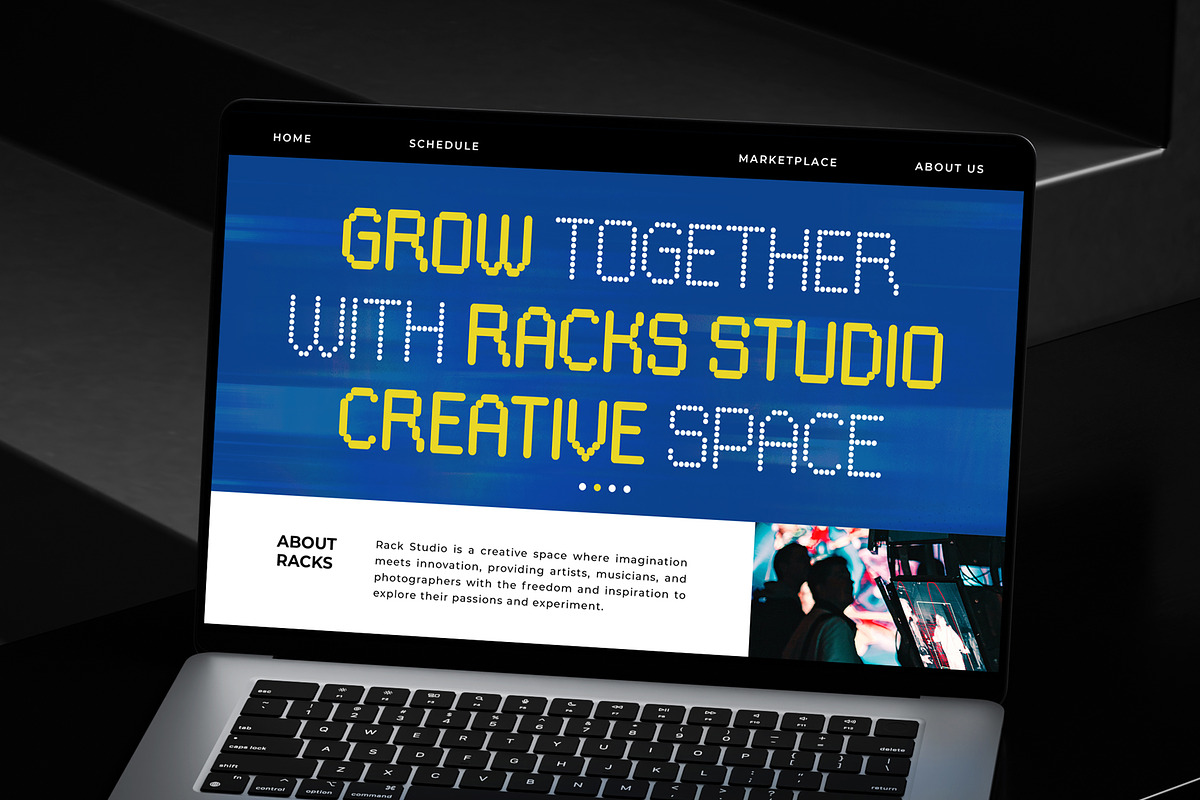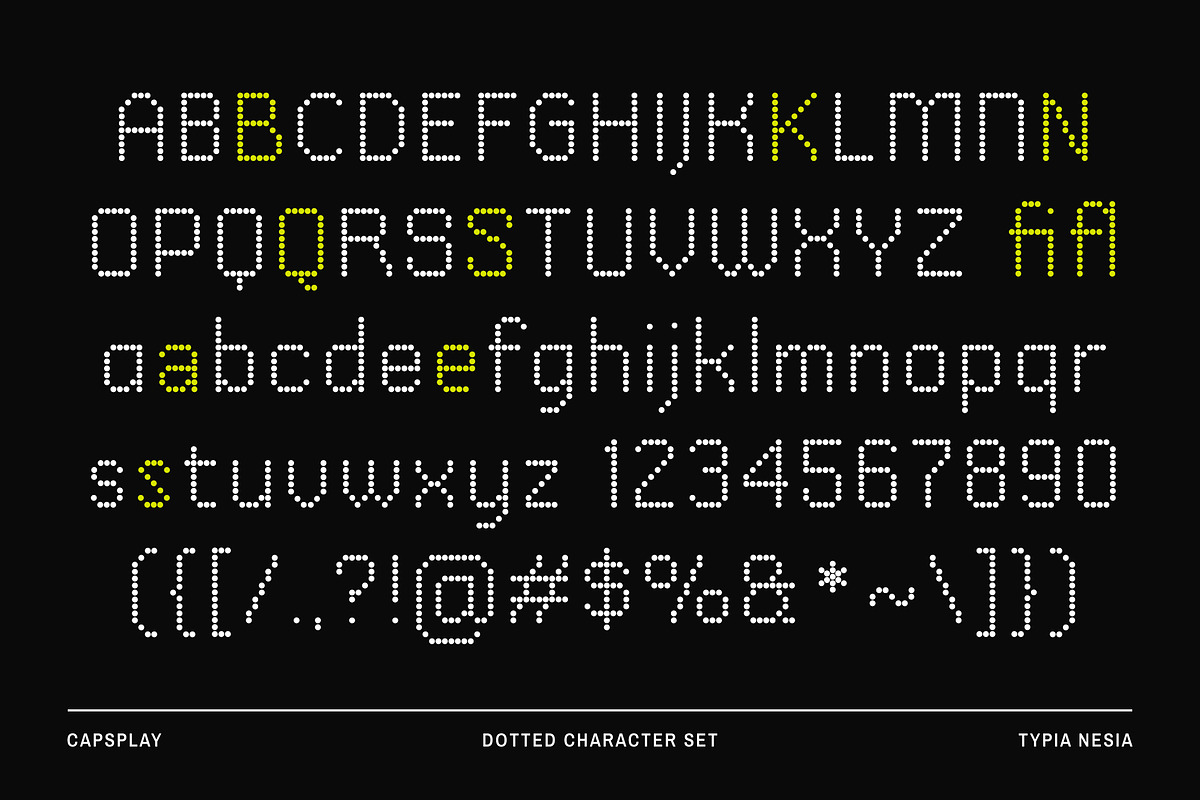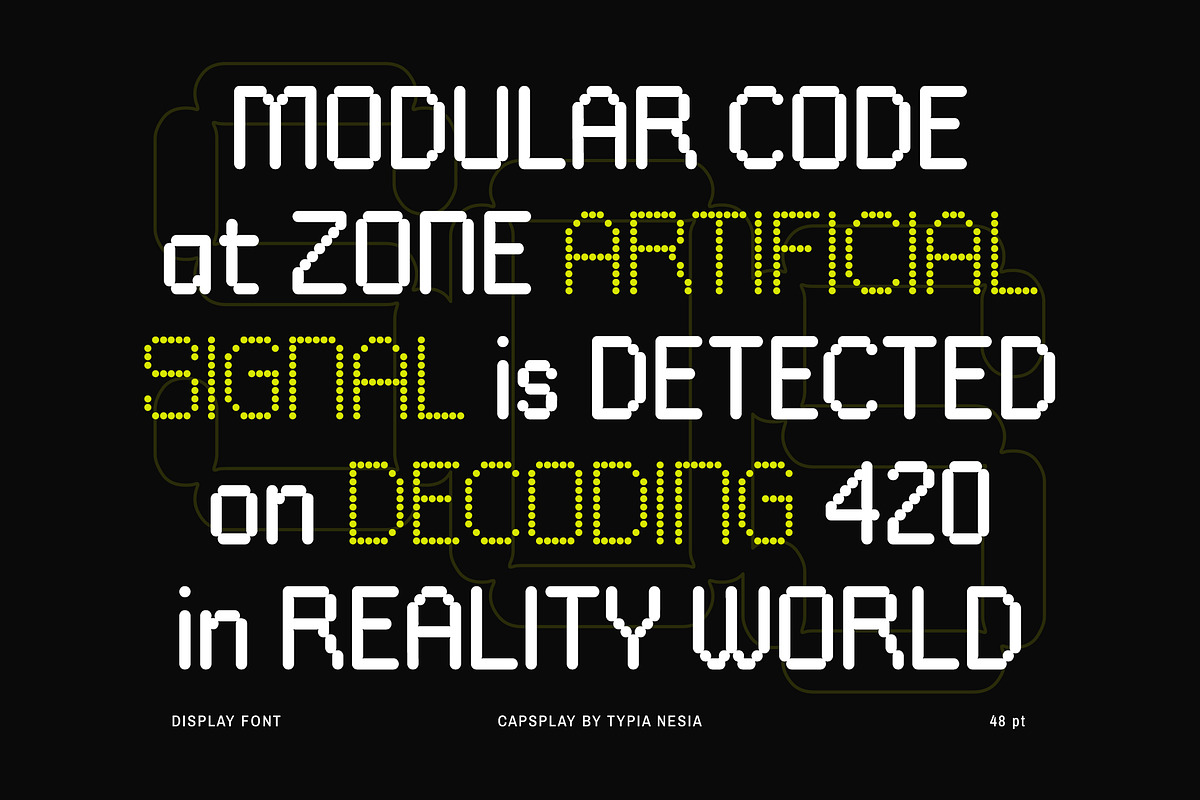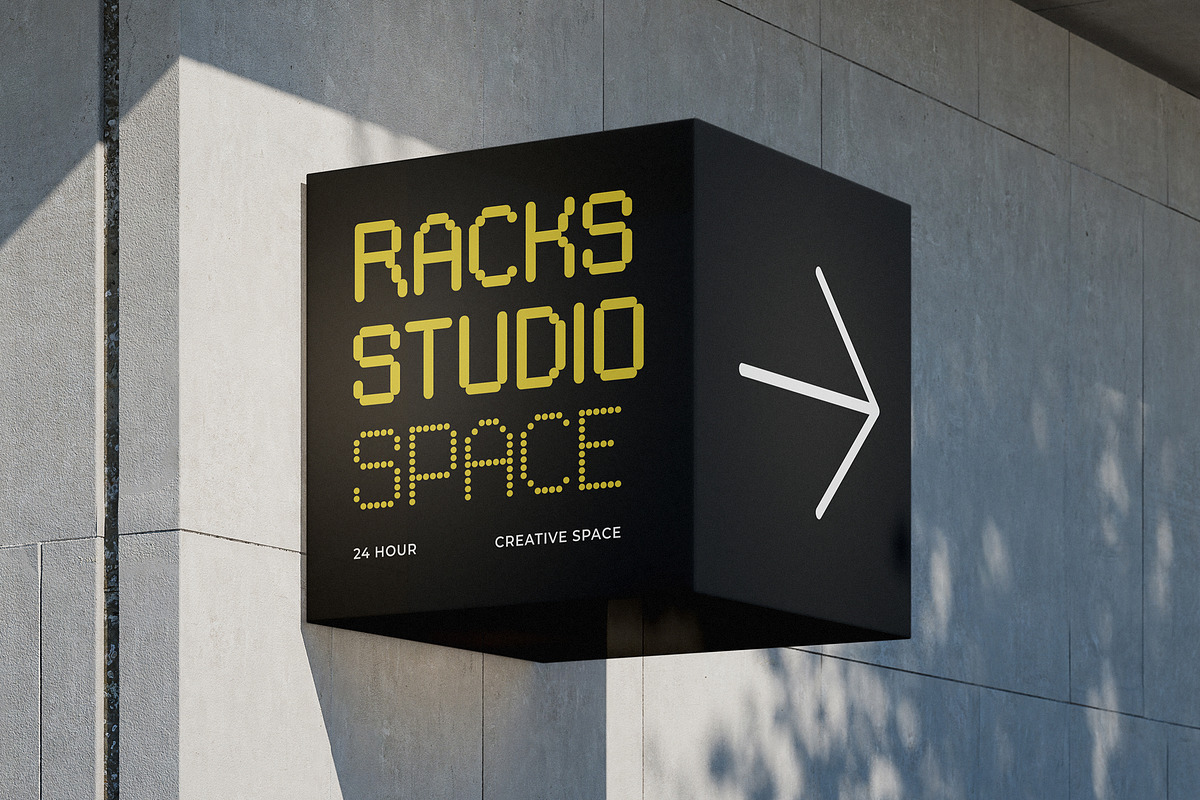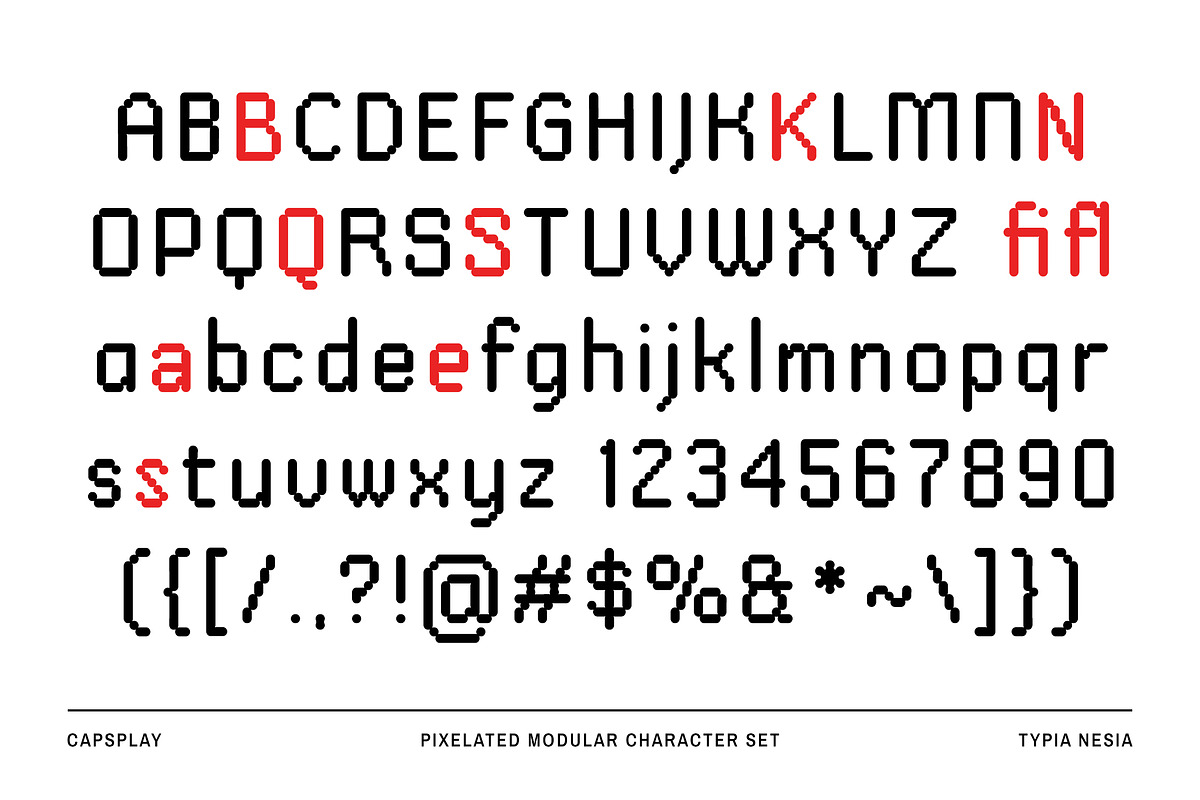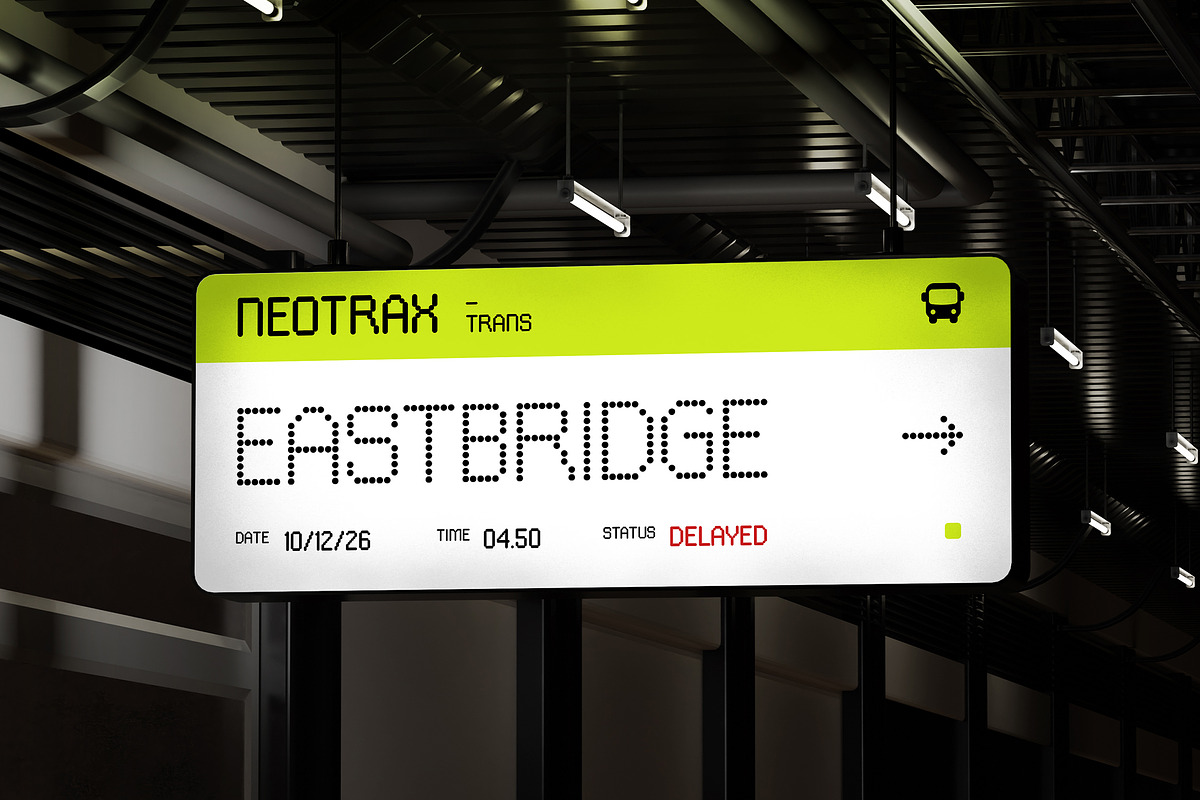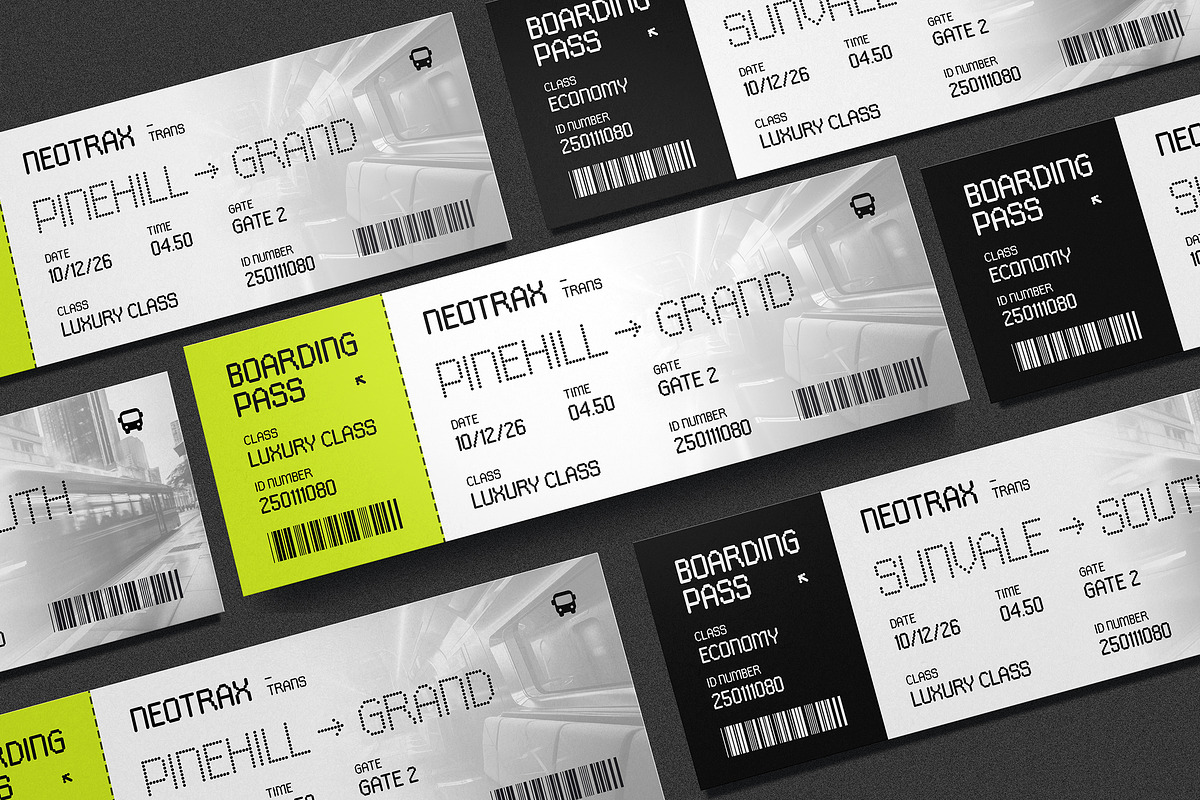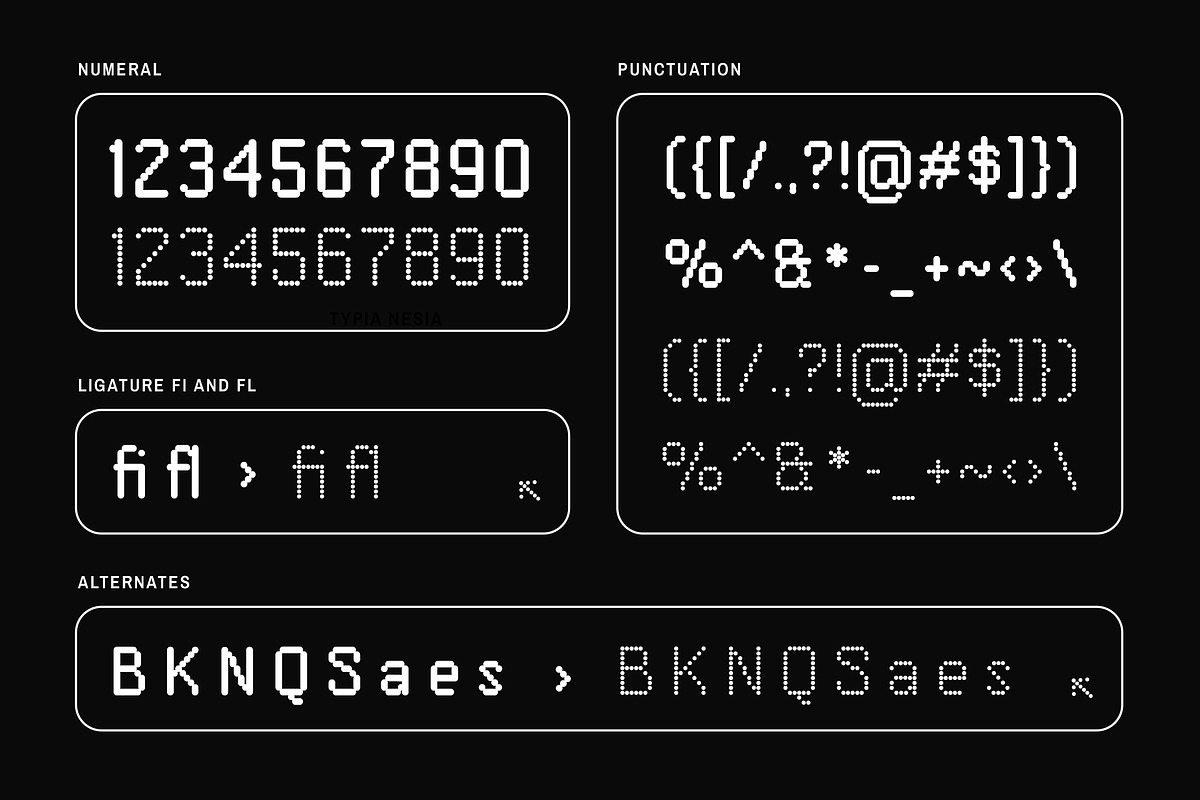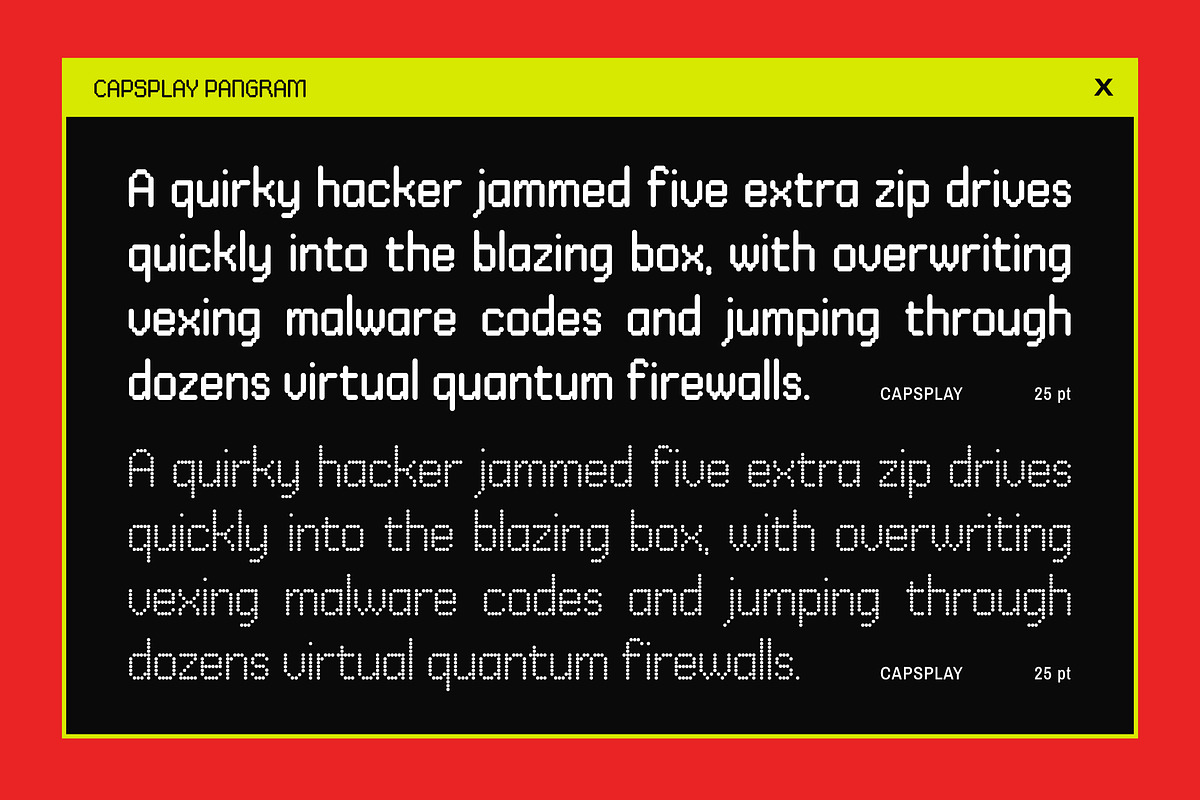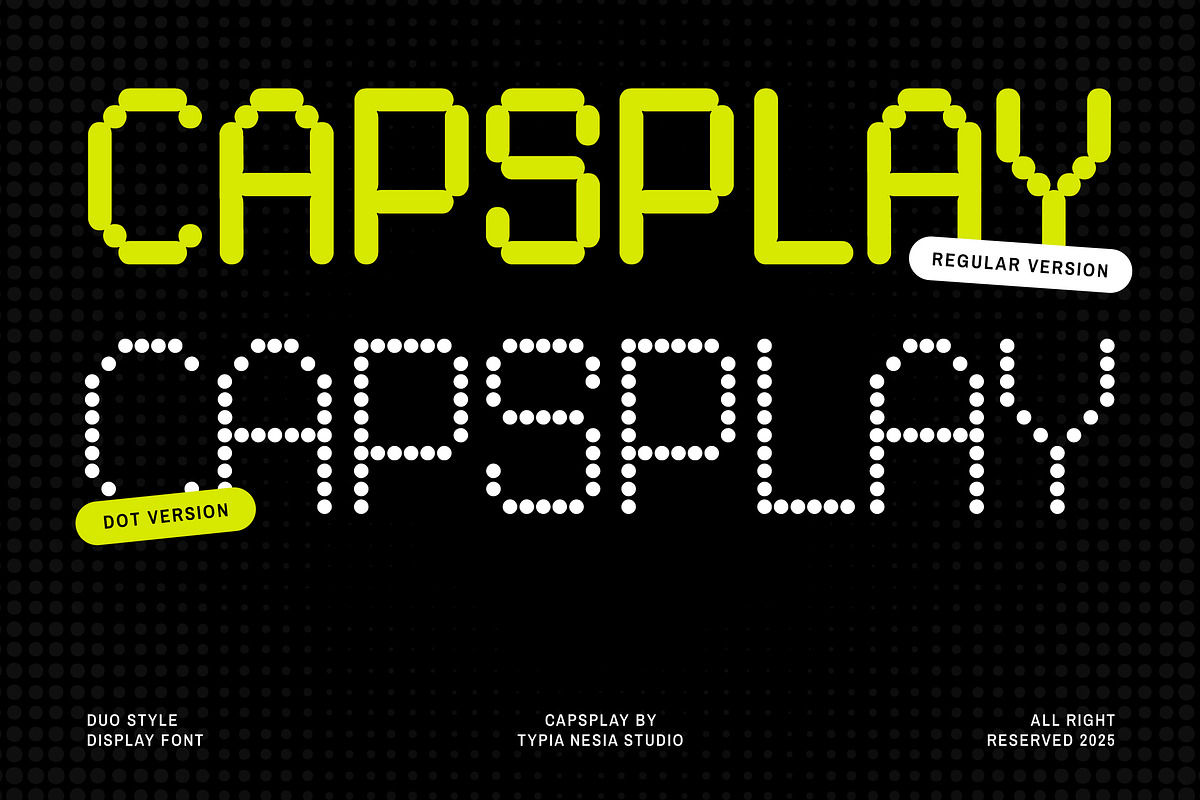
Capsplay - Futuristic Dot Pixel
Capsplay - Modern Futuristic Dot Pixel Font - Tech & Retro Game Font
Capsplay is a dynamic duo-style display font that perfectly captures the aesthetic of pixelated and modular design. It comes in two distinct versions: a regular, blocky style and a unique dotted version, offering incredible versatility for creative projects. Inspired by retro gaming and digital interfaces, this font is ideal for modern tech branding, futuristic signage, arcade game graphics, advertising campaigns, logo design, posters, eye-catching headlines and any project that requires a touch of clean and nostalgic feel. With its bold, structured letterforms and a full character set including ligatures and alternates, ensuring your designs flexibility and stand out with a confident, high-tech personality.